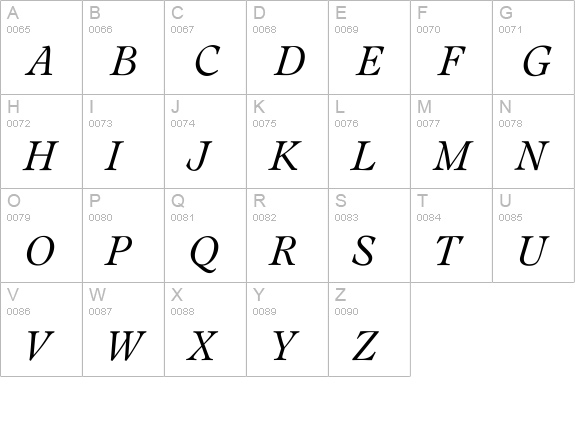
Ileamington Light Font Details
Ileamington Light is a refined, elegant variant in the Ileamington typeface family \xE2\x80\x94 well suited to elegant body text, refined sub-headings, and luxury branding.
Introducing Ileamington Light, a modern and elegant font that effortlessly combines sophistication with readability. Designed with precision and meticulous attention to detail, this exquisite typeface is perfect for adding a touch of elegance to any project. The Ileamington Light font features clean lines and gentle curves, creating a harmonious balance that is both pleasing to the eye and easy to read. Its sleek and slender letterforms exude a sense of grace and refinement, making it ideal for a wide range of applications, from logo design and branding to editorial layouts and digital presentations. But what truly sets Ileamington Light apart is its availability as a free download at FontsMarket.com. Yes, you read that right - this exceptional font can be yours, completely free of charge. Now, you can elevate your designs without breaking the bank, as Ileamington Light offers you the opportunity to access high-quality typography without any cost. Whether you're a professional designer looking to enhance your portfolio or a creative enthusiast seeking to add a touch of sophistication to your personal projects, Ileamington Light is the perfect choice. With its versatile nature and timeless appeal, this font is bound to leave a lasting impression on your audience. So why wait? Visit FontsMarket.com today and experience the beauty and versatility of Ileamington Light for yourself. Download it freely and unlock a world of design possibilities. Elevate your typography game with this remarkable font and let your creativity shine.